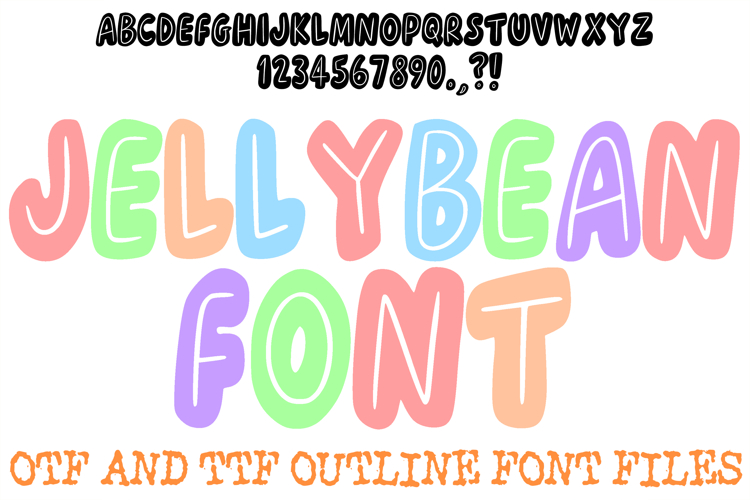
Jellybean Font Cartoon Bubble Hand Drawn Comic Lettering ABC
The Jellybean Font is a sweet and high-energy display typeface featuring ultra-bold silhouettes with a signature "glowing" inner-line detail. This design captures the smooth, rounded essence of a classic jellybean, using thick black letterforms and a crisp white inset to create a 3D "pop" effect that stands out on any background. It is the ultimate choice for candy shop branding, playful birthday stationery, creative stickers, and modern classroom decor.
By combining a heavy, "pillowy" weight with a hand-drawn, artisanal feel, this font offers a friendly and approachable personality. Whether you are designing a logo for a toy store, crafting custom apparel, or working on vibrant social media headers, the Jellybean Font provides a professional, "neon-lite" aesthetic that is both fun and highly readable.
Signature Inset Detail: The delicate white inner-line mimics a reflection or a glowing neon tube, adding instant depth to the chunky characters.
Bouncy & Bold Silhouettes: Every letter and number is designed with soft, rounded edges to maintain a playful, candy-like appearance.